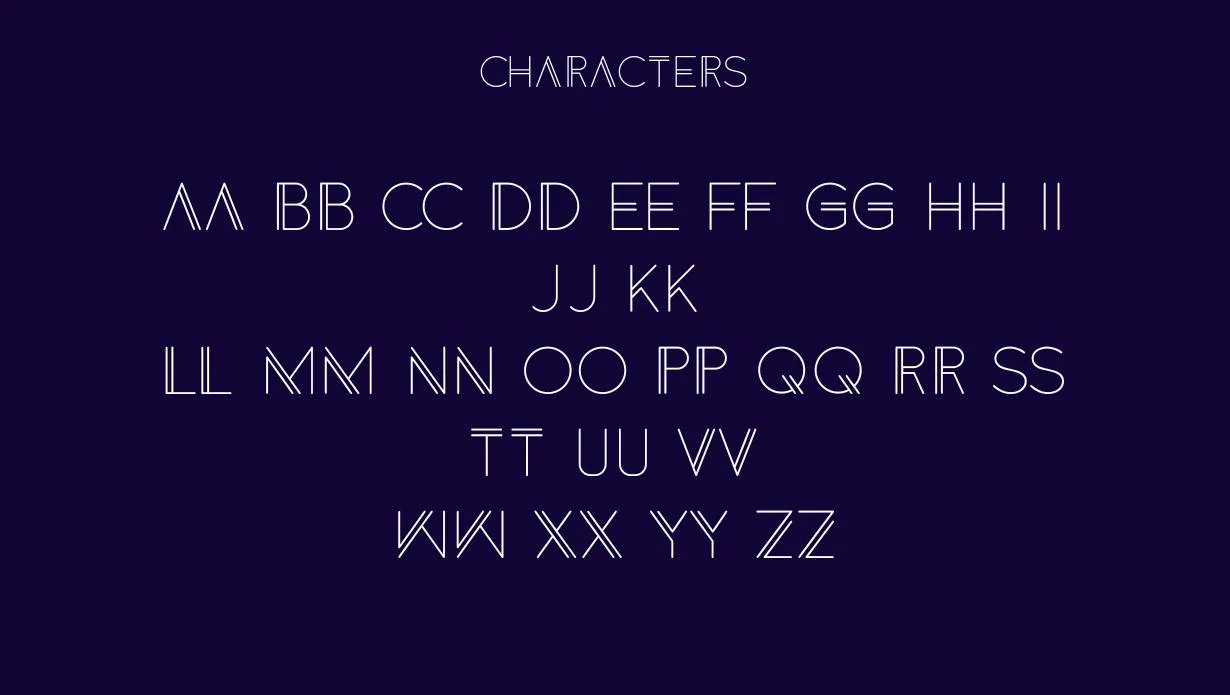
The Anders Typeface Font is a clean and versatile font suitable for print and digital applications. Its simplicity and distinctive design make it an excellent choice for a wide range of design projects, from logos to web content.
View of Anders Typeface Font
| Designer | Tom Anders Watkins |